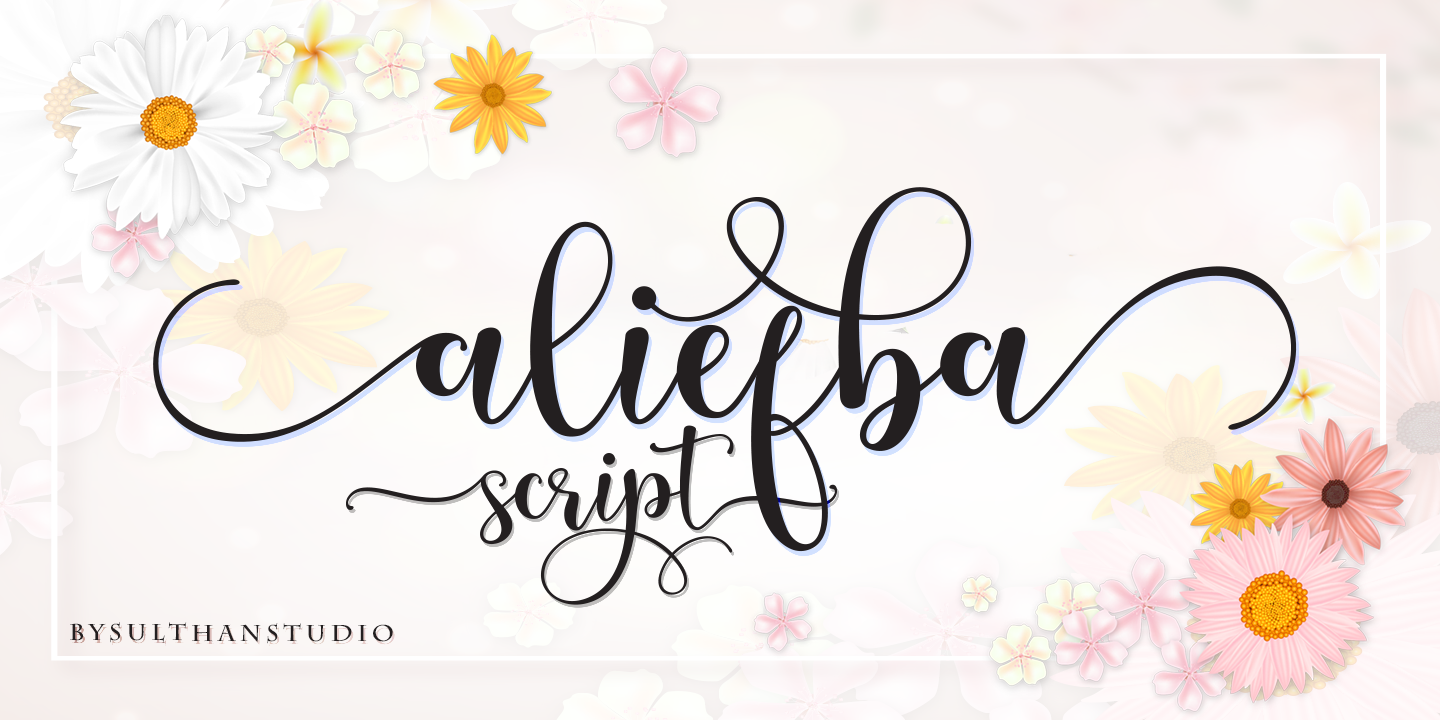
Aliefba Script Font is perfect for elegant wedding invitations, handwritten greeting cards, luxury calligraphy designs, personal stationery, romantic love letters, signature logos, boutique branding, artisan product packaging, handcrafted business cards, elegant certificates, sophisticated quote graphics, and premium invitation suites.
What makes Aliefba Script Font so exciting is its beautifully flowing script design that perfectly mimics the natural movement and elegance of hand-lettered calligraphy. This stunning typeface features graceful connecting strokes, organic letter variations, and sophisticated flourishes that create an authentic handwritten appearance, making it ideal for projects that need to communicate personal touch, elegance, and artisanal craftsmanship with genuine warmth and human connection.
The Aliefba Script Font family typically includes regular and ornamental variations with decorative swashes, alternative character sets, and elegant ligatures that enhance the handwritten aesthetic while providing designers with multiple stylistic options for creating dynamic layouts.
Whether you're designing personalized stationery or creating branding for artisanal businesses, Aliefba Script Font Free Download offers the perfect typography solution for projects requiring authentic handwritten elegance and personal charm. This versatile font seamlessly blends traditional calligraphy artistry with modern functionality, making it an essential resource for designers working on projects that celebrate craftsmanship, personal expression, and the timeless beauty of hand-lettered typography.